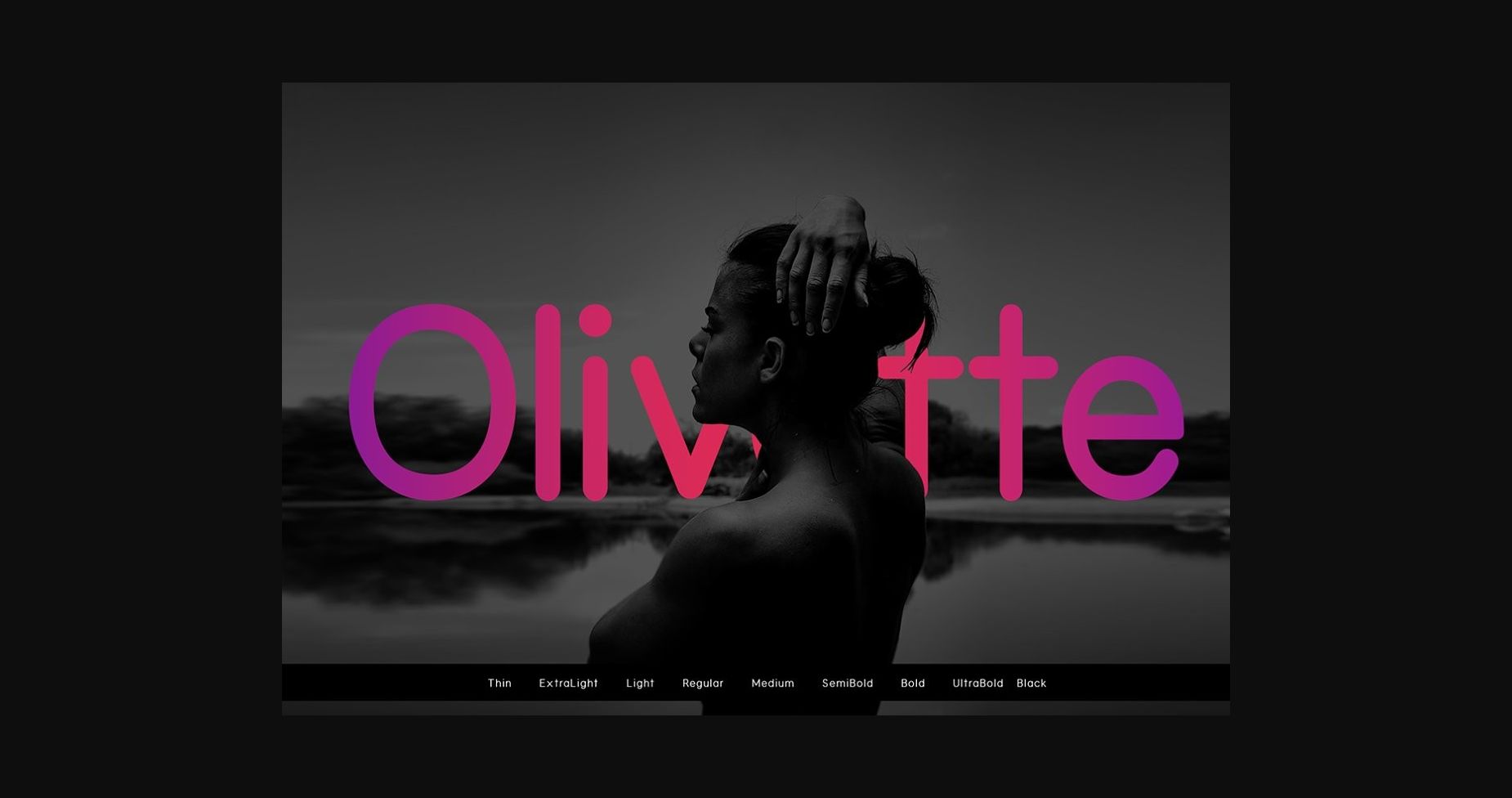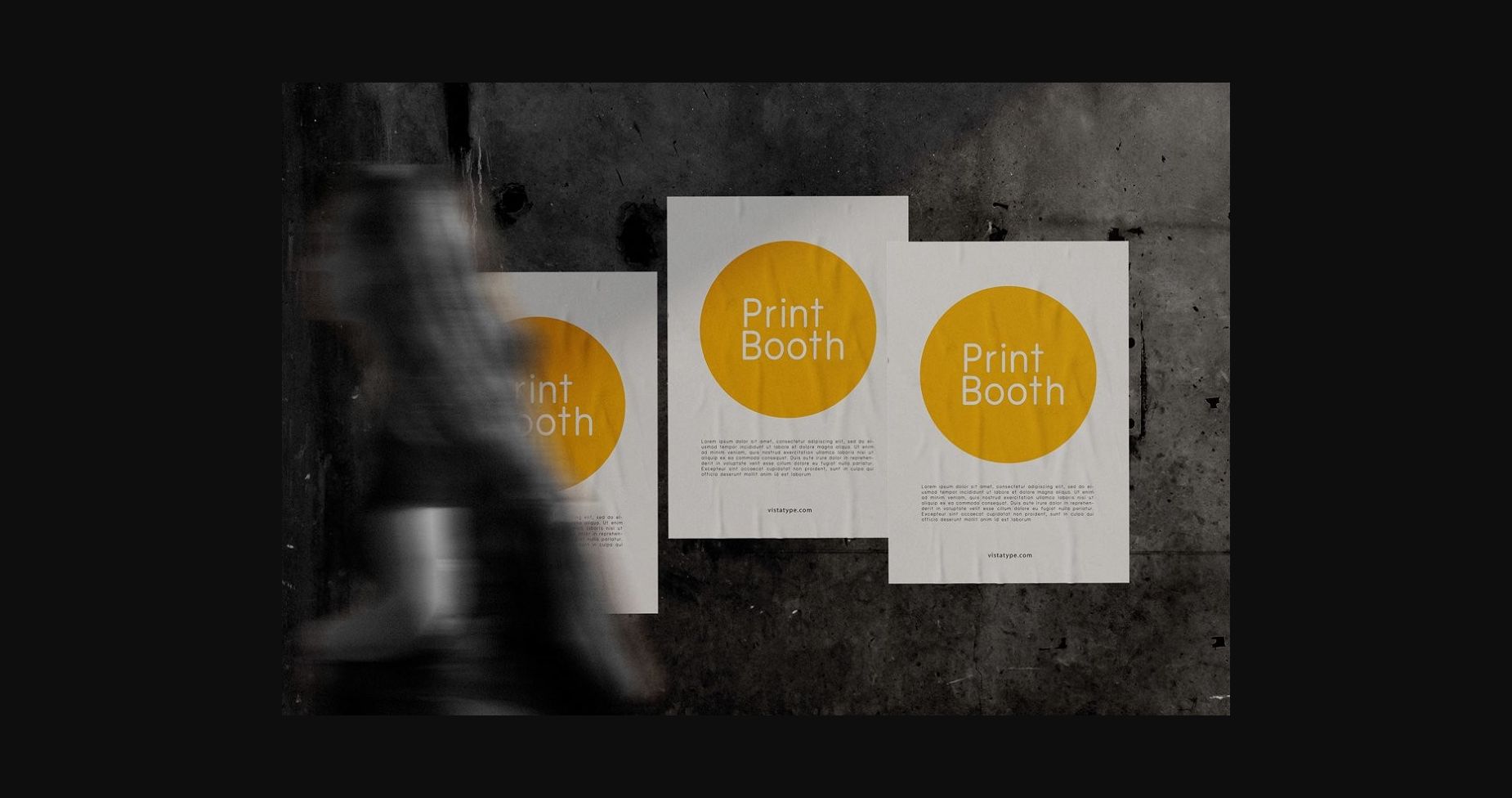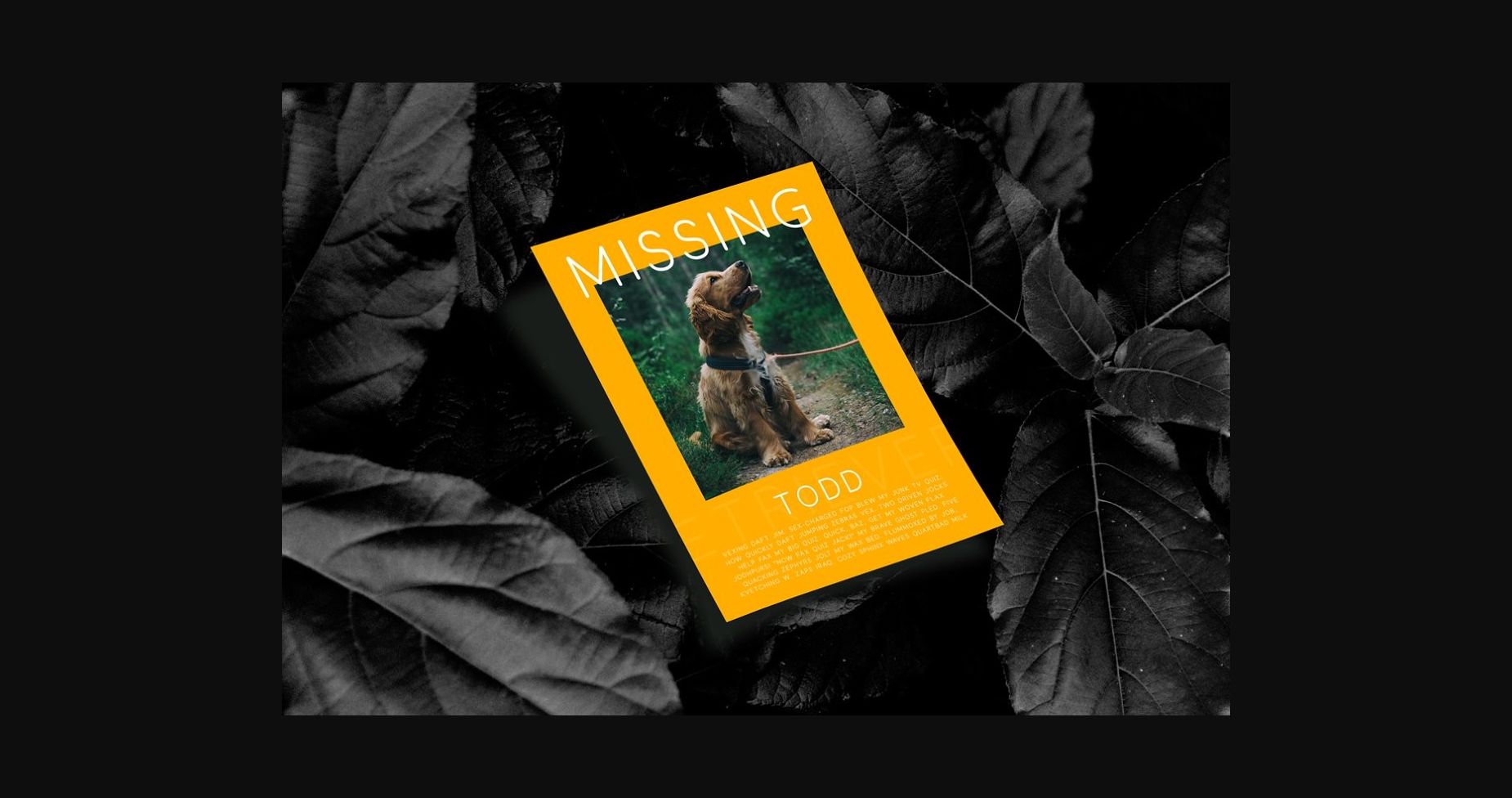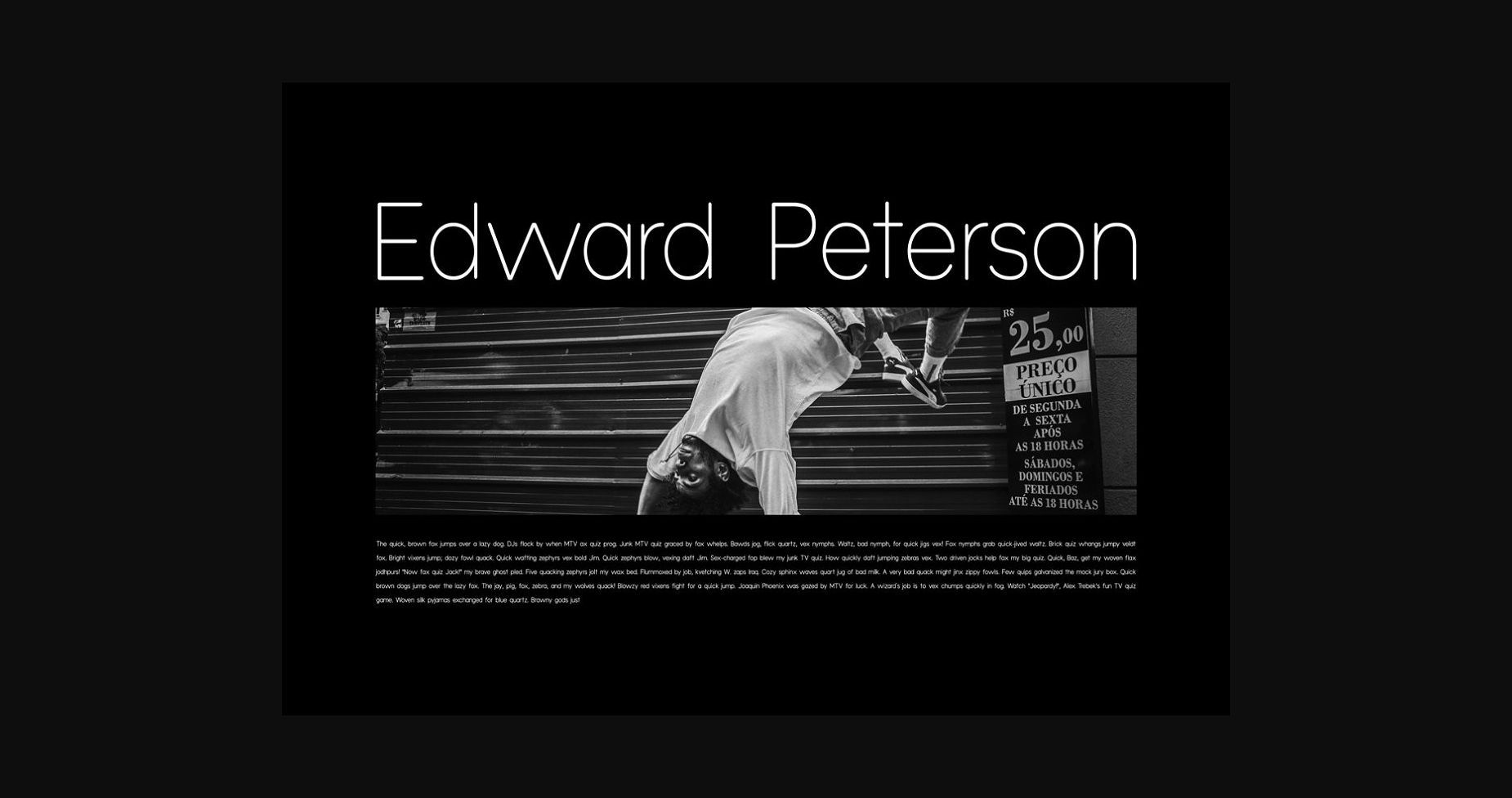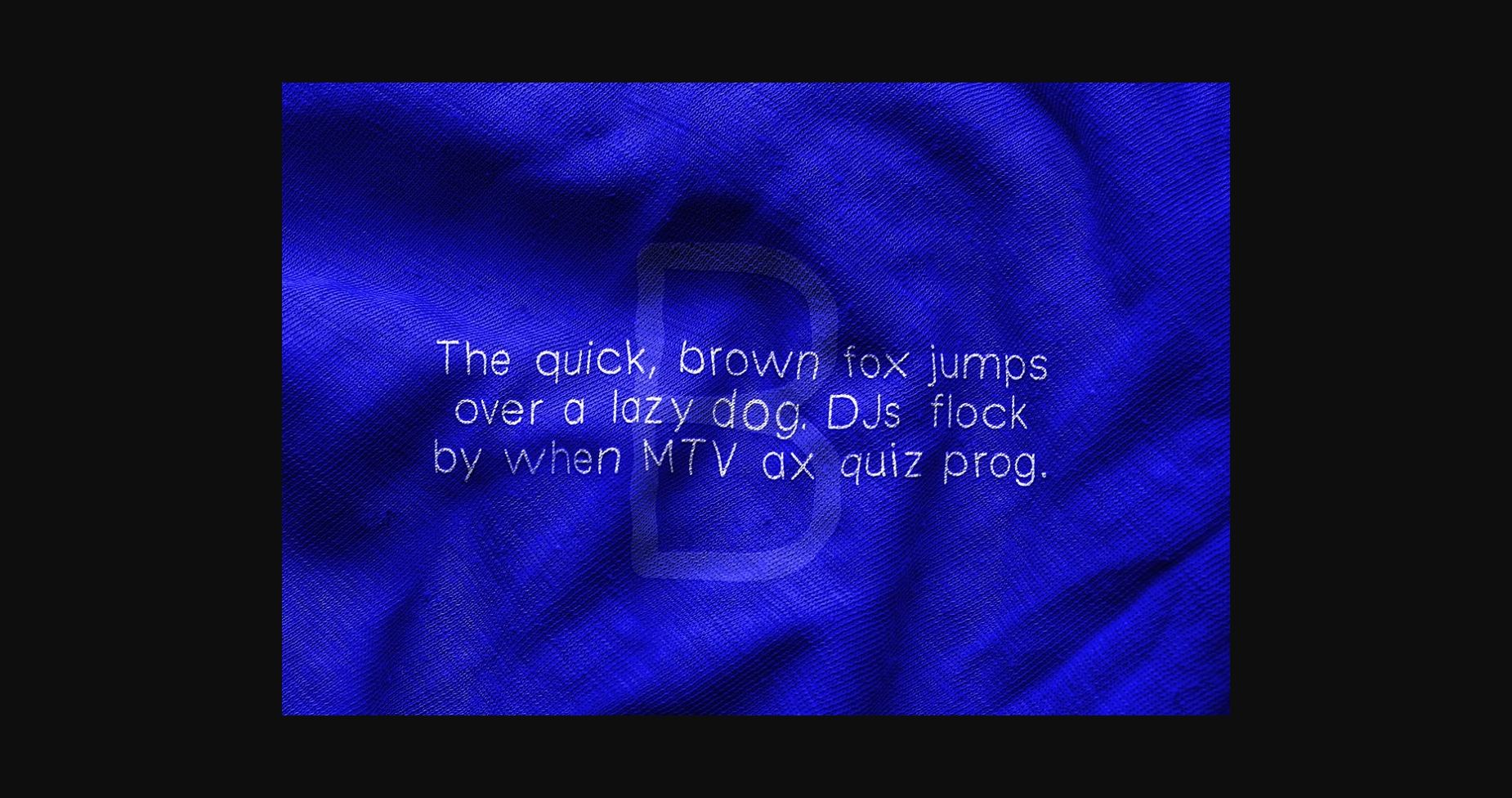
About Olivette Font
Olivette is a cool and modern sans serif font. It is perfect for product packaging, branding project, magazine covers, social media, wedding, or just used to express words above the background.